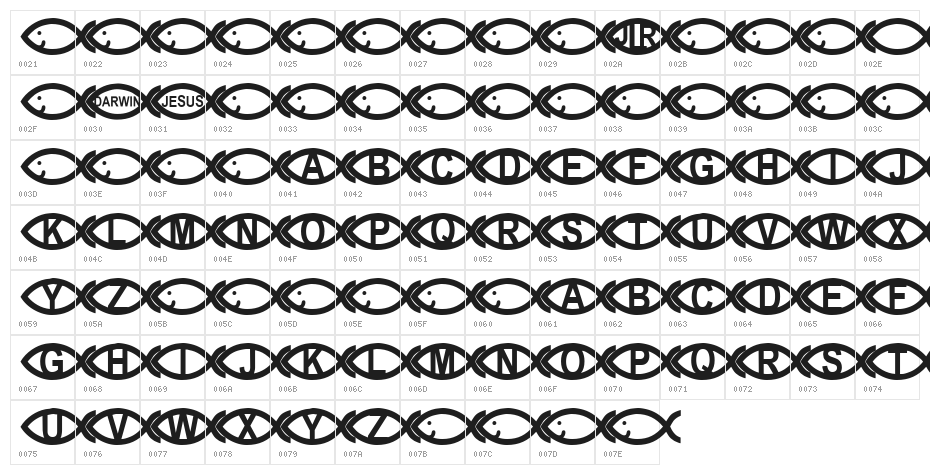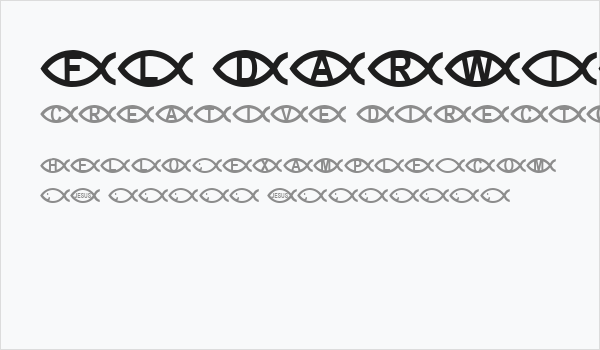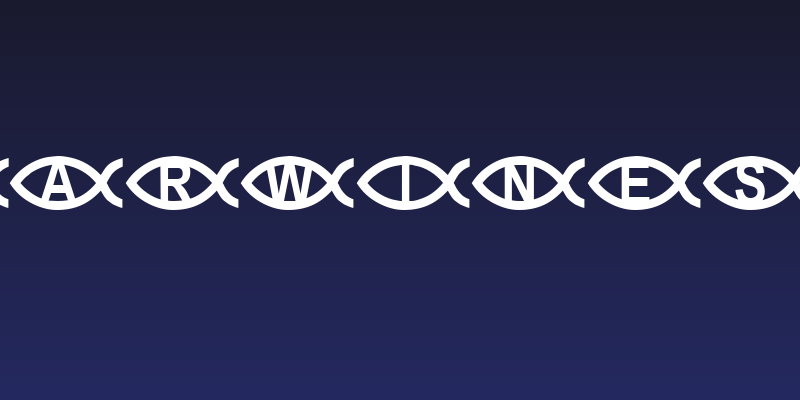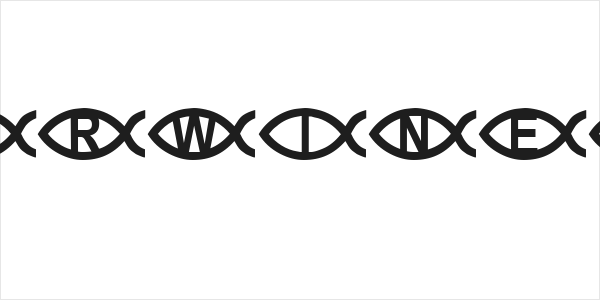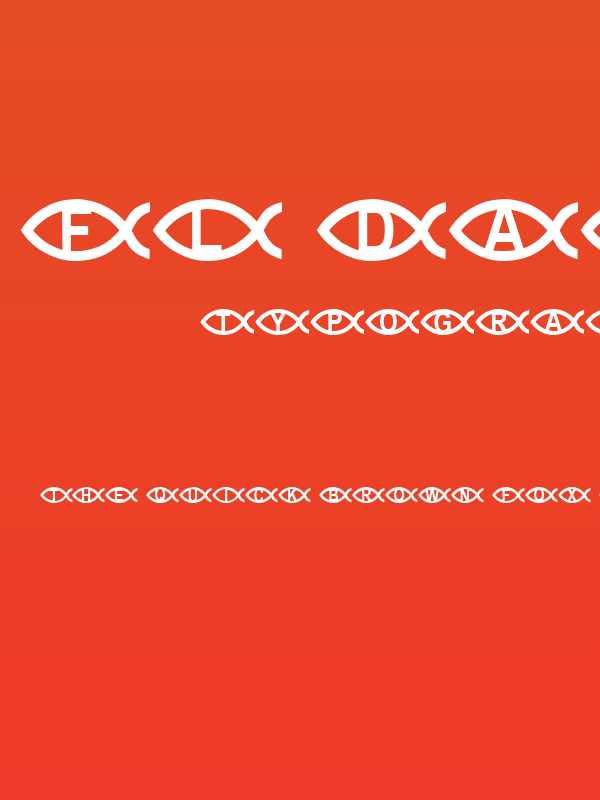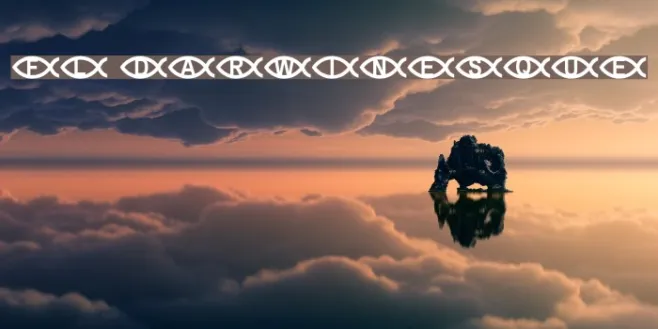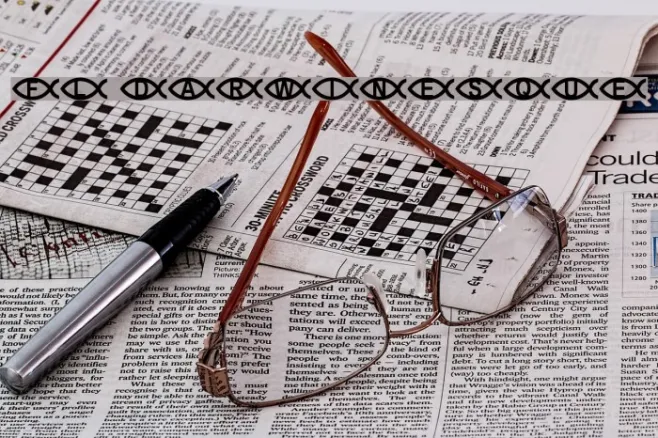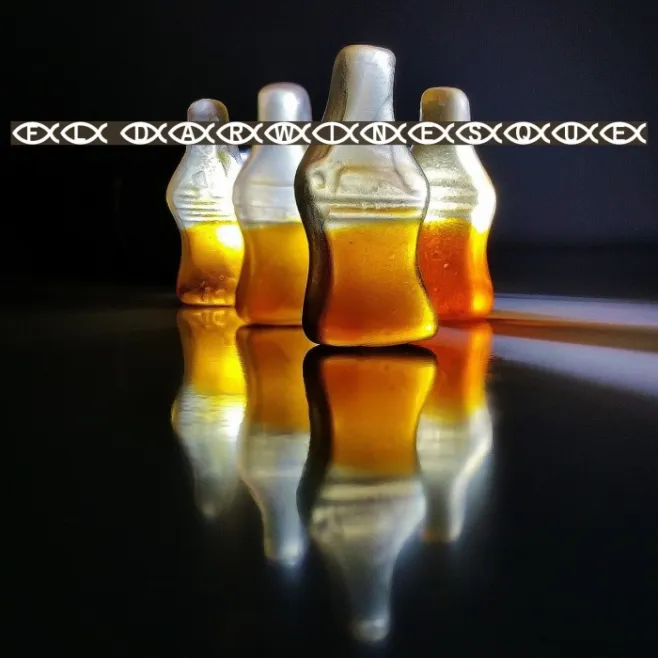
FL Darwinesque Font
FL Darwinesque Description
This unique decorative font features characters enclosed within the shape of a fish, a symbol often associated with religious and evolutionary themes. Each letter and number is creatively integrated into the fish design, making it both a letter and a symbol. The font includes uppercase letters, lowercase letters, numbers, and a selection of special characters. The style is bold and visually striking, with each character maintaining a consistent shape and size. The design is playful yet meaningful, making it suitable for thematic projects that require a distinctive and symbolic typeface.
| Use Case | Logos, Thematic designs, Educational materials |
| Proposed Projects | Ideal for religious or evolutionary themed designs, educational materials, or creative projects needing symbolic representation. |